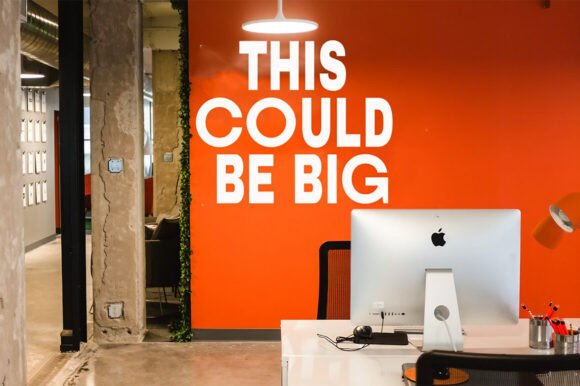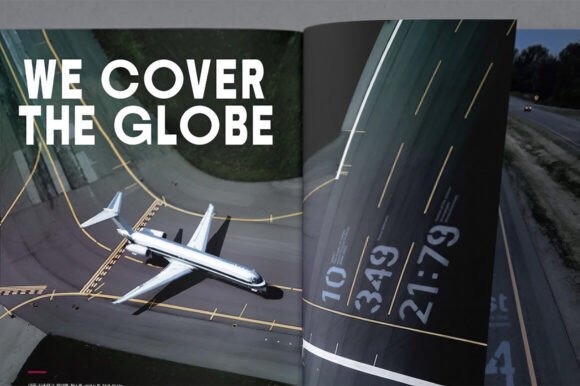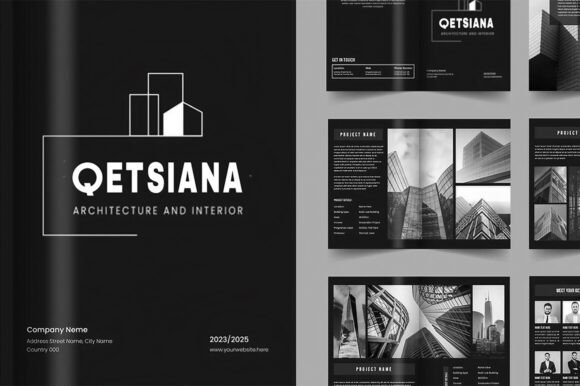
The Gaetgos Font: A Modern Sans-Serif Typeface for Creative Projects
I still remember the frustration of working on a branding project for a trendy new cafe, determined to find the perfect font that would capture their modern yet elegant vibe. After hours of scrolling through font libraries and testing out different typefaces, I stumbled upon the Gaetgos font. It was love at first sight! ✨ The sleek lines, balanced proportions, and confident demeanor instantly resonated with the cafe’s upscale yet approachable personality. In that moment, I knew I had found the perfect fit.
- ✨ Elegant and Modern Design: Gaetgos boasts clean lines and uniform letterforms that exude professionalism and sophistication.
- ✅ Versatility: This font is perfect for a wide range of design projects, from branding and editorial design to web interfaces and presentations.
- 💡 Legibility: Gaetgos ensures clarity and impact, making it easy to read and understand, even at smaller font sizes.
While Gaetgos is an excellent font, there are a few things to keep in mind:
- ⚠️ Limited Extensibility: Gaetgos is a sans-serif font, which might limit its use in projects requiring a more traditional or ornate feel.
- 🤔 Glyph Variety: While Gaetgos has a range of glyphs and OpenType features, it might not have the extensive character set of some other fonts.
- Experiment with OpenType features, such as stylistic alternates and glyphs, to add visual interest to your design.
The Designer Inspiration Behind Gaetgos
Gaetgos was designed with the modern creative in mind. Its clean lines and balanced proportions are inspired by the works of renowned designers like Jan Tschichold and Josef Müller-Brockmann, who championed the use of grid systems and geometric typography. The font’s subtle curves and elegant aesthetic are also influenced by the Mid-Century Modern design movement, which emphasized simplicity, functionality, and a human-centered approach.
Q: What makes Gaetgos a versatile font?
A: Gaetgos is a versatile font due to its clean design, legibility, and range of OpenType features, making it suitable for a wide range of design projects, from branding and editorial design to web interfaces and presentations.
Q: Is Gaetgos suitable for body text?
A: While Gaetgos is a beautiful font, it’s best suited for headlines, titles, and short paragraphs. For longer body text, you may want to consider a font with more traditional typography and better readability at smaller font sizes.